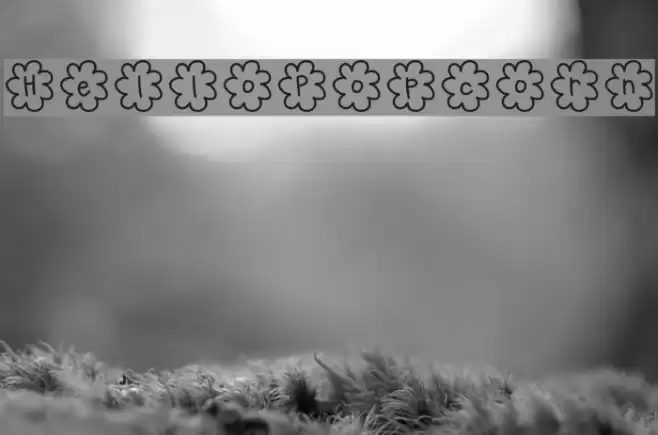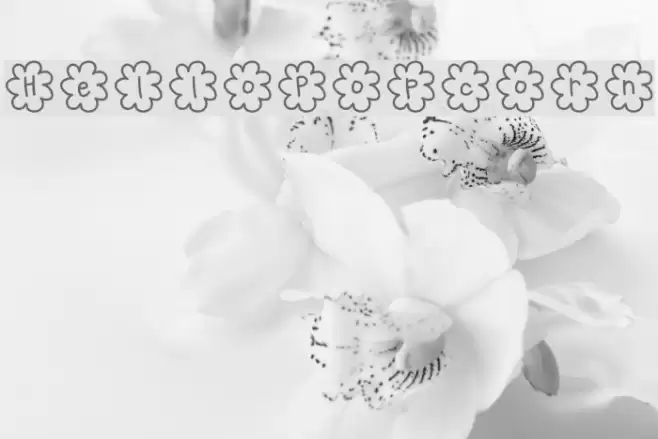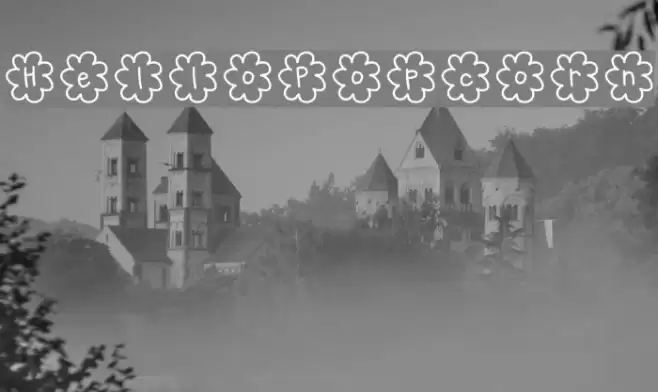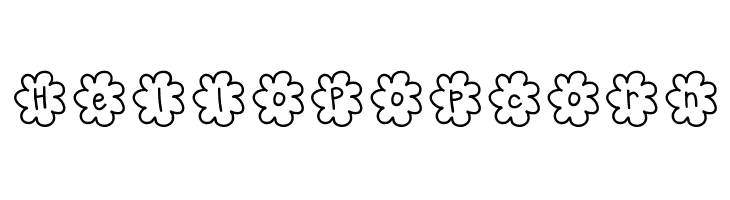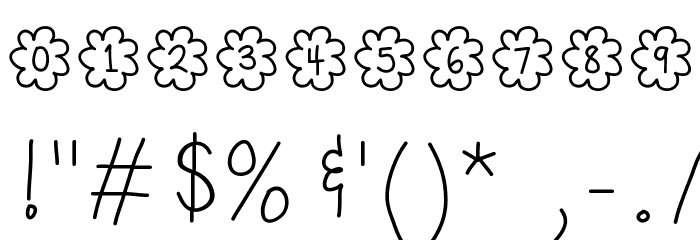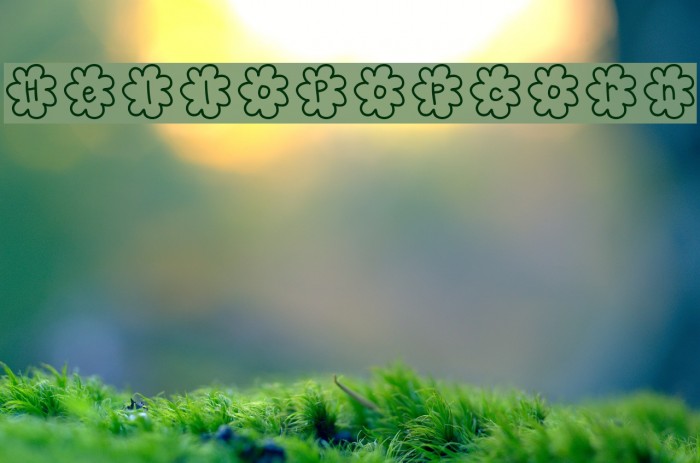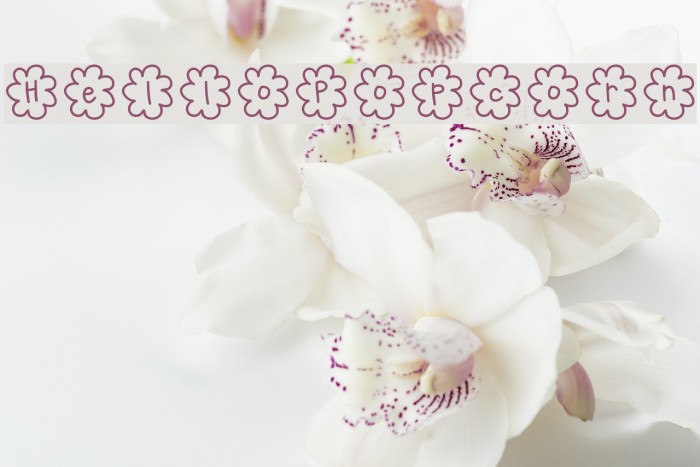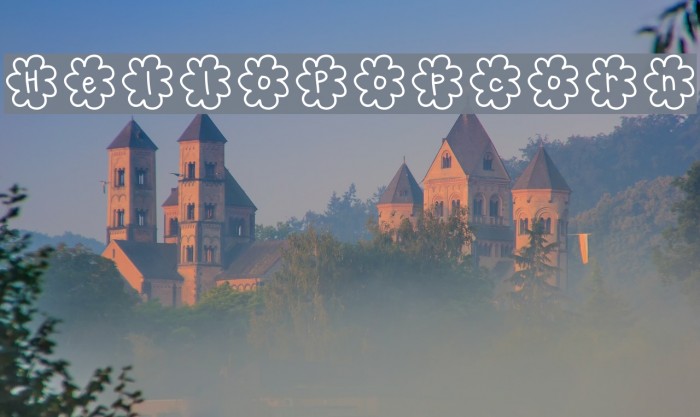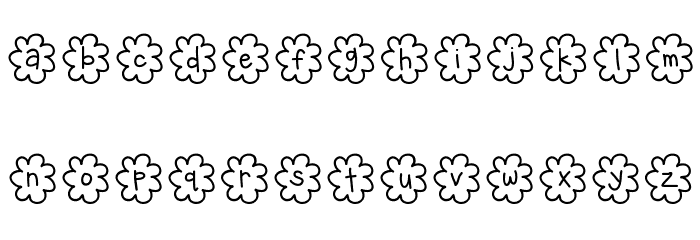
HelloPopcorn Font
HelloPopcorn Description
This playful and whimsical font features characters enclosed within flower-shaped outlines, giving it a unique and decorative appearance. The letters are bold and cartoonish, with a consistent thickness that adds to the fun and lively style. Each character is distinct, yet they all share the same floral border, creating a cohesive and eye-catching design. The font is perfect for projects that require a touch of creativity and joy, such as children's books, party invitations, or playful branding. Its decorative nature makes it stand out, while the clear and bold lettering ensures readability.
A playful font with characters enclosed in flower-shaped outlines, perfect for creative projects from Decorative fonts.
- Proposed Projects: Ideal for children's books, party invitations, playful branding, and creative designs.